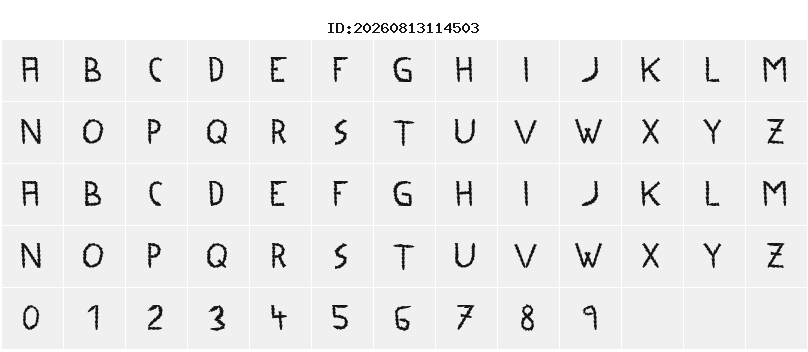
Palms Preview
• Font Name: Palms
• Full Font Name: Palms
About Palms.ttf
Palms.ttf is a modern, elegant sans-serif font designed for ultimate readability and visual harmony. Perfect for branding, headlines, web design, and print materials.